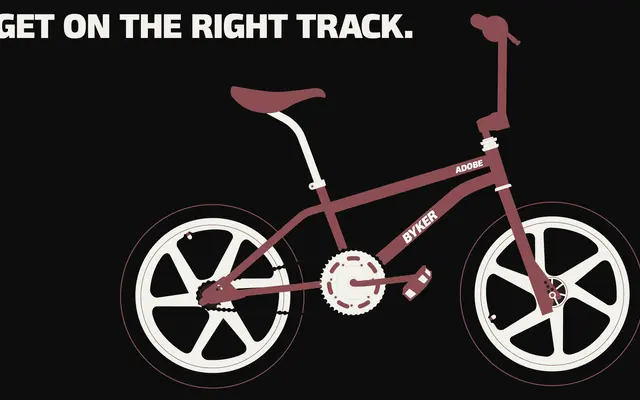
A geometric sans built on a digital grid but softened with handmade curves, available in eight weights with italics and a variable font.
Constructed from a technical grid and finished with handmade curves, Byker sits between the precision of a geometric sans and something warmer and more organic. Version 2.0 adds an ultra display weight, a variable font, and expanded OpenType features covering eleven number variations, small caps and alternate lowercase characters. Language support spans Western, Southern and Central European Latin, with over 900 characters per style.
Explicitly described as a geometric sans-serif, constructed from a technical grid with handmade curves overlaid, giving it a hybrid geometric-organic character.